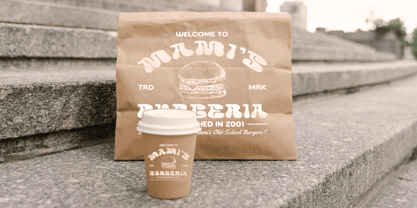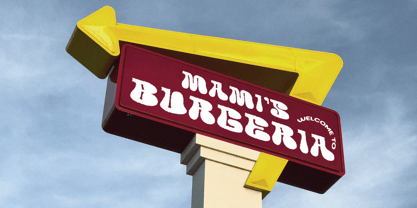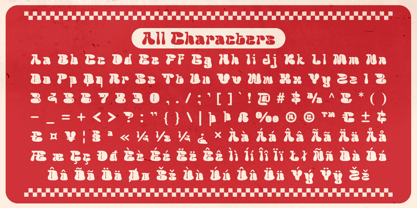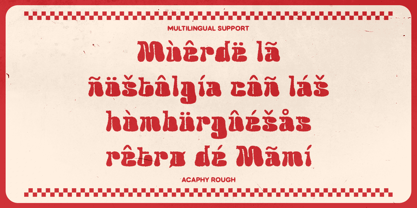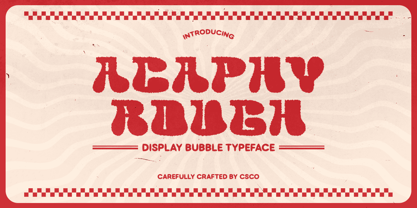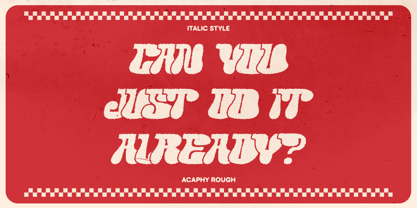
Acaphy Rough
by Craft Supply Co
Acaphy Rough Font – Funky Bubble Display with a Bold Twist
Playful Bubble Shapes with a Rough Edge
Acaphy Rough is a display font that combines large, rounded bubble shapes with a striking rough effect. The playful, oversized forms give the font a cheerful and funky vibe, perfect for adding a lighthearted, energetic tone to your designs.
Dynamic Contrast with Textured Rough Effect
The rough effect introduces a bold, textured contrast to the soft bubble shapes, adding dimension and character. This unique combination of playful bubbles and rugged texture results in a font that feels both fun and daring, making it ideal for creative and unconventional projects.
Perfect for Fun, Eccentric Designs
Acaphy Rough is the perfect choice for designs that aim to stand out with creativity and uniqueness. Whether used in posters, logos, or promotional materials, this font brings a fun and eccentric theme to life, ensuring your work grabs attention with its bold, quirky style.
Versatile for Creative Projects
From playful branding to standout visuals, Acaphy Rough’s combination of funky bubble shapes and rough texture makes it versatile for a variety of creative applications. Its bold and energetic look is sure to enhance any design with a vibrant and unique flair.